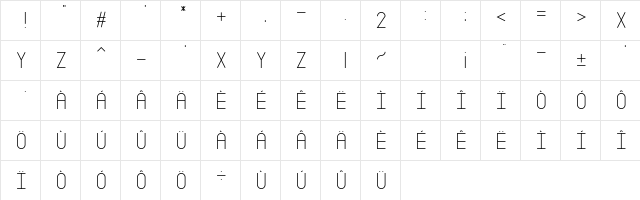
Zector Regular
Design Context for Zector Typeface
Zector is a composed and adaptable typeface that performs quietly and consistently across a wide range of design contexts.